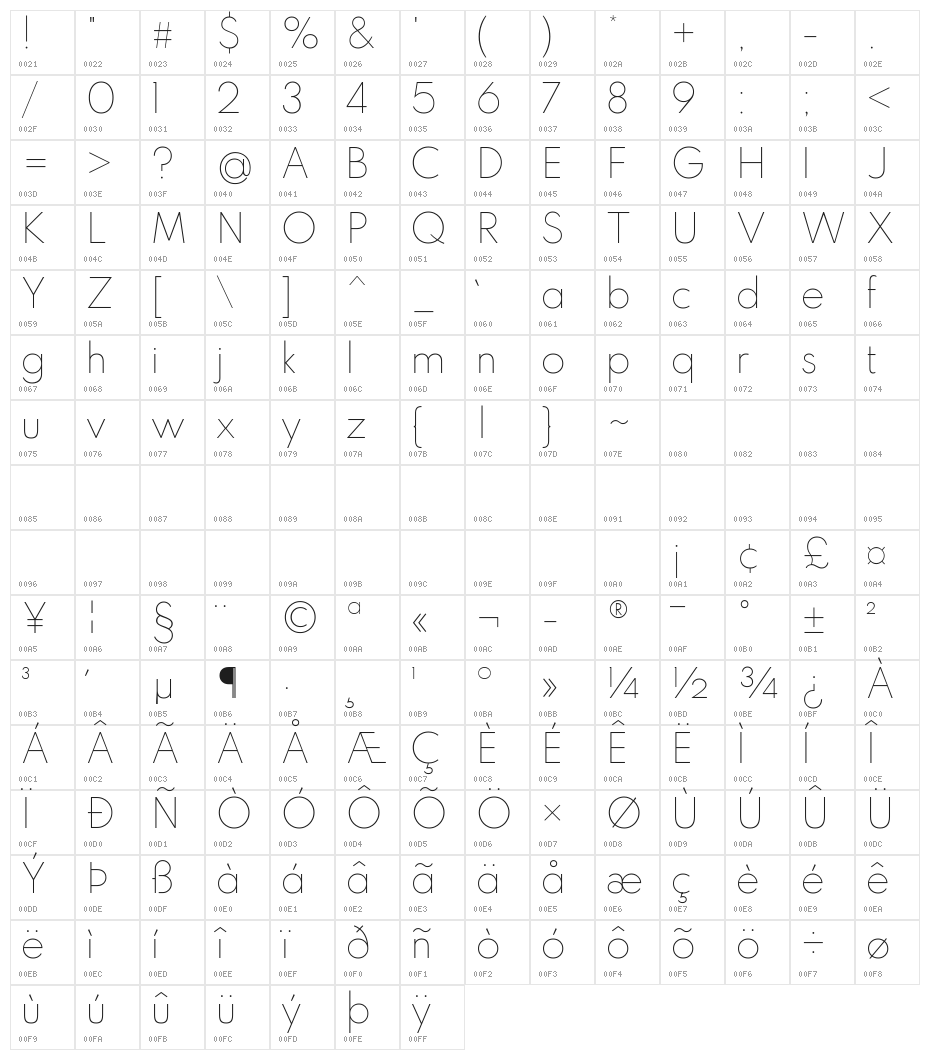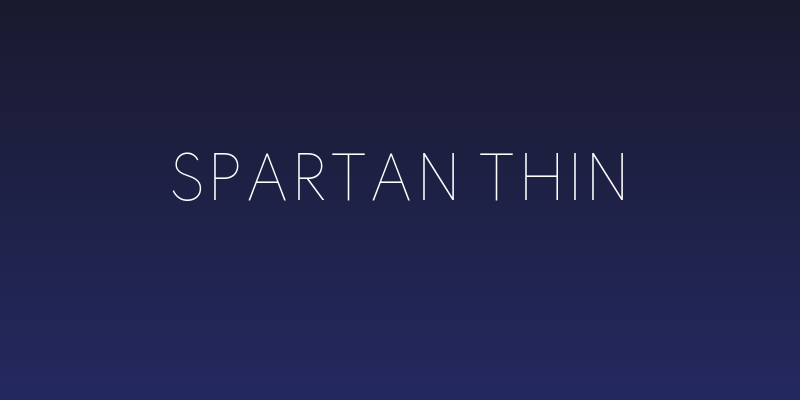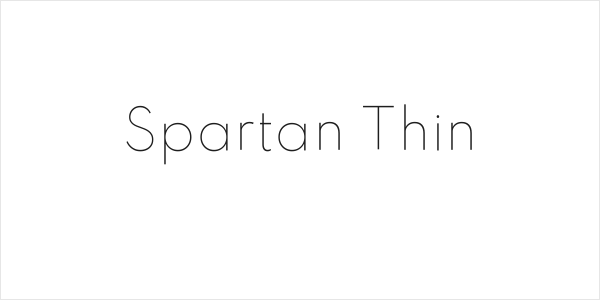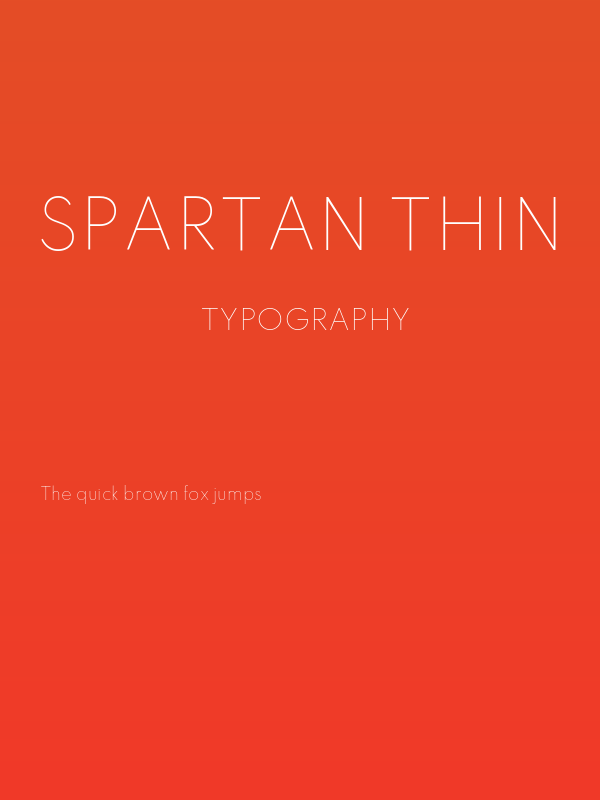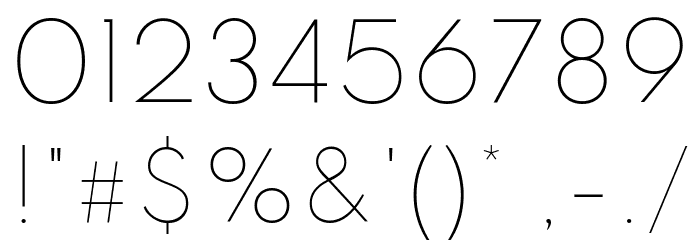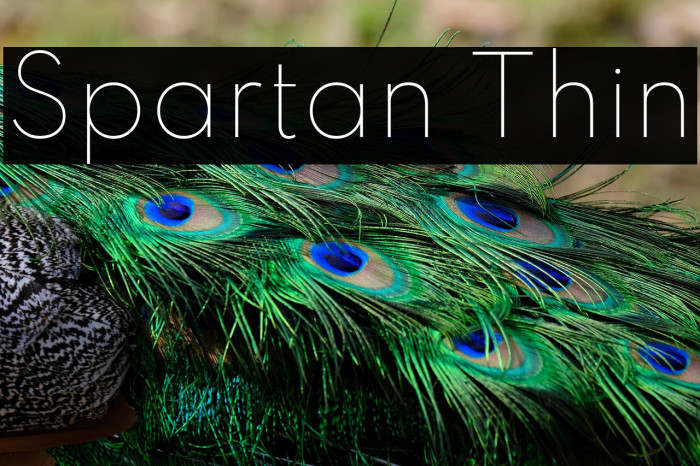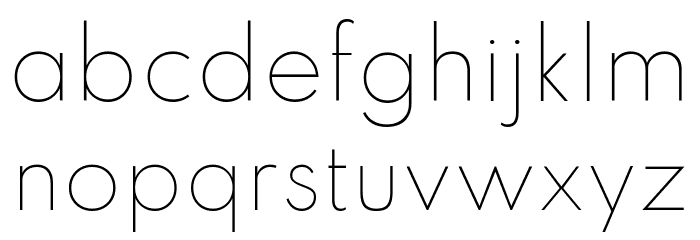
Spartan Thin Font
Spartan Thin Description
This font features a clean and minimalist design with thin, uniform strokes that convey a sense of elegance and modernity. The characters are evenly spaced, contributing to a balanced and airy appearance. The uppercase and lowercase letters maintain a consistent height, enhancing readability. The numerals and special characters are designed with the same thin strokes, ensuring a cohesive look across all elements. The overall style is sleek and contemporary, making it suitable for a variety of design applications where a refined and understated aesthetic is desired.
| Use Case | Headlines, Body text, Logos |
| Proposed Projects | Ideal for use in modern branding, minimalist web design, elegant invitations, and sleek editorial layouts. |